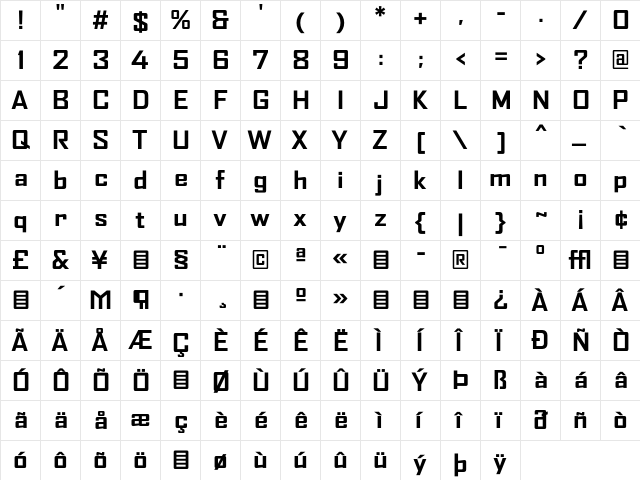
AgencyFBWide Bold
Design Context for AgencyFBWide Typeface
AgencyFBWide is a composed and adaptable typeface that performs quietly and consistently across a wide range of design contexts. Its bold stroke weight gives it real presence on the page.